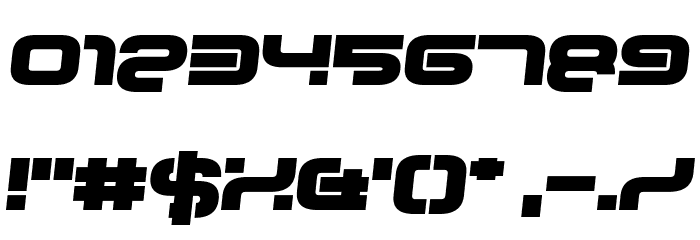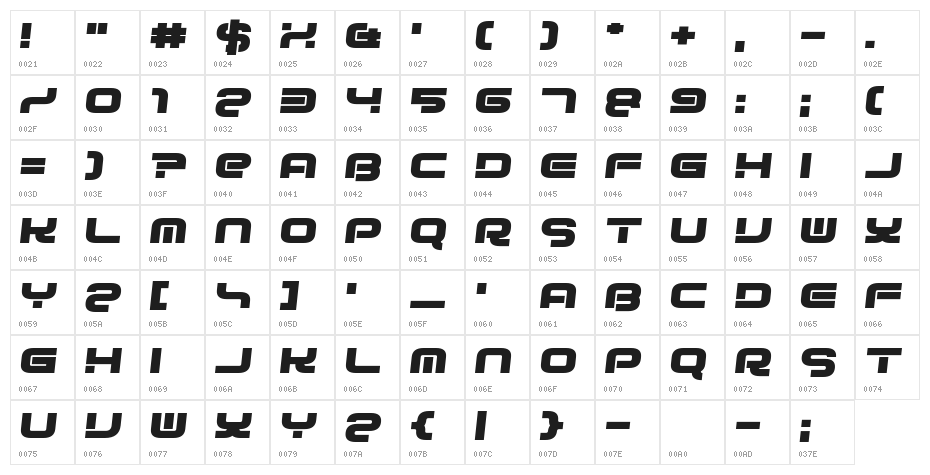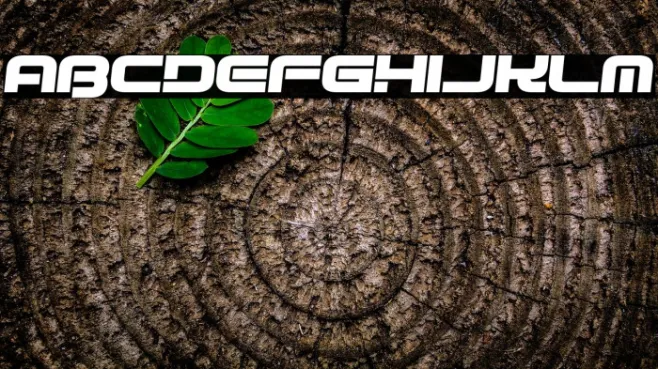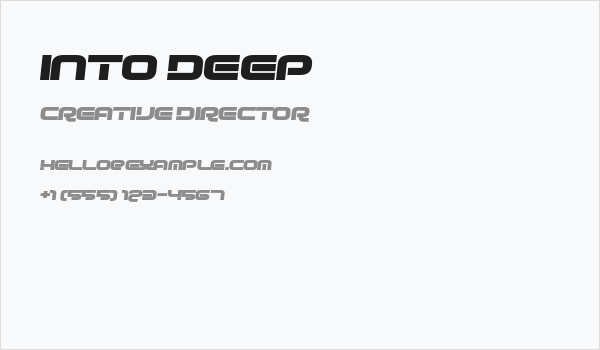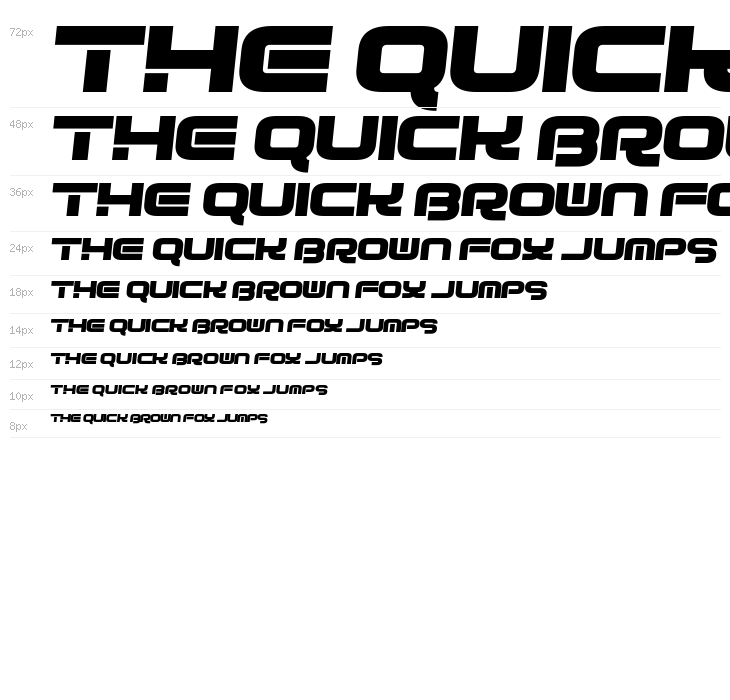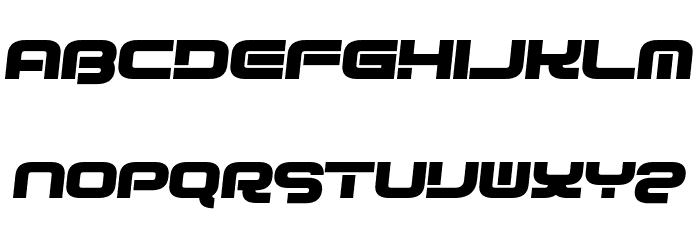
Into Deep Font
Into Deep Description
This font features a bold and futuristic design with a strong geometric influence. The characters are wide and have a distinct, angular style that gives them a modern and tech-inspired appearance. The uppercase and lowercase letters share a consistent design ethos, with smooth curves and sharp edges that create a dynamic visual impact. The numbers and special characters are designed to match the boldness and style of the alphabet, ensuring a cohesive look across all text. This font is ideal for projects that require a contemporary and cutting-edge aesthetic.